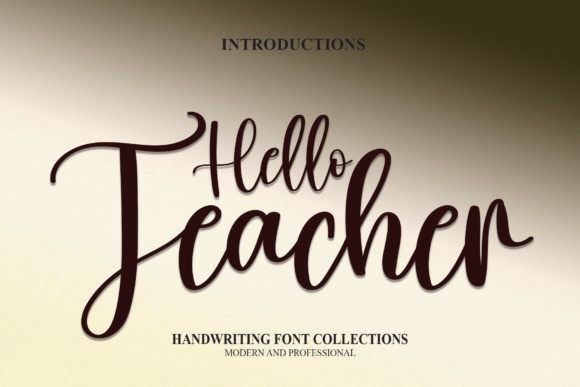
Hello Teacher Font
Hello Teacher Font is a flowing and chic script font. This gentle font will look gorgeous on a variety of design ideas. It will add a joyful and romantic touch to each of your projects!